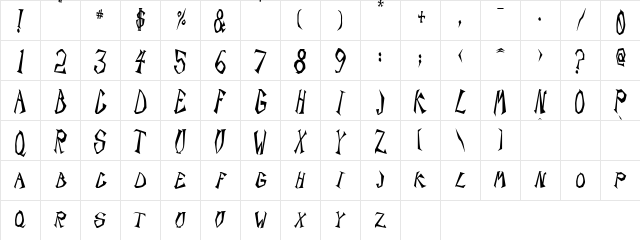
Complete ScorpionCondensed Black glyph index. Displaying only characters natively supported by ScorpionCondensed Black font.
ScorpionCondensed is a composed and adaptable typeface that performs quietly and consistently across a wide range of design contexts. Its narrow stance lets it pack a punch even in space-constrained designs.